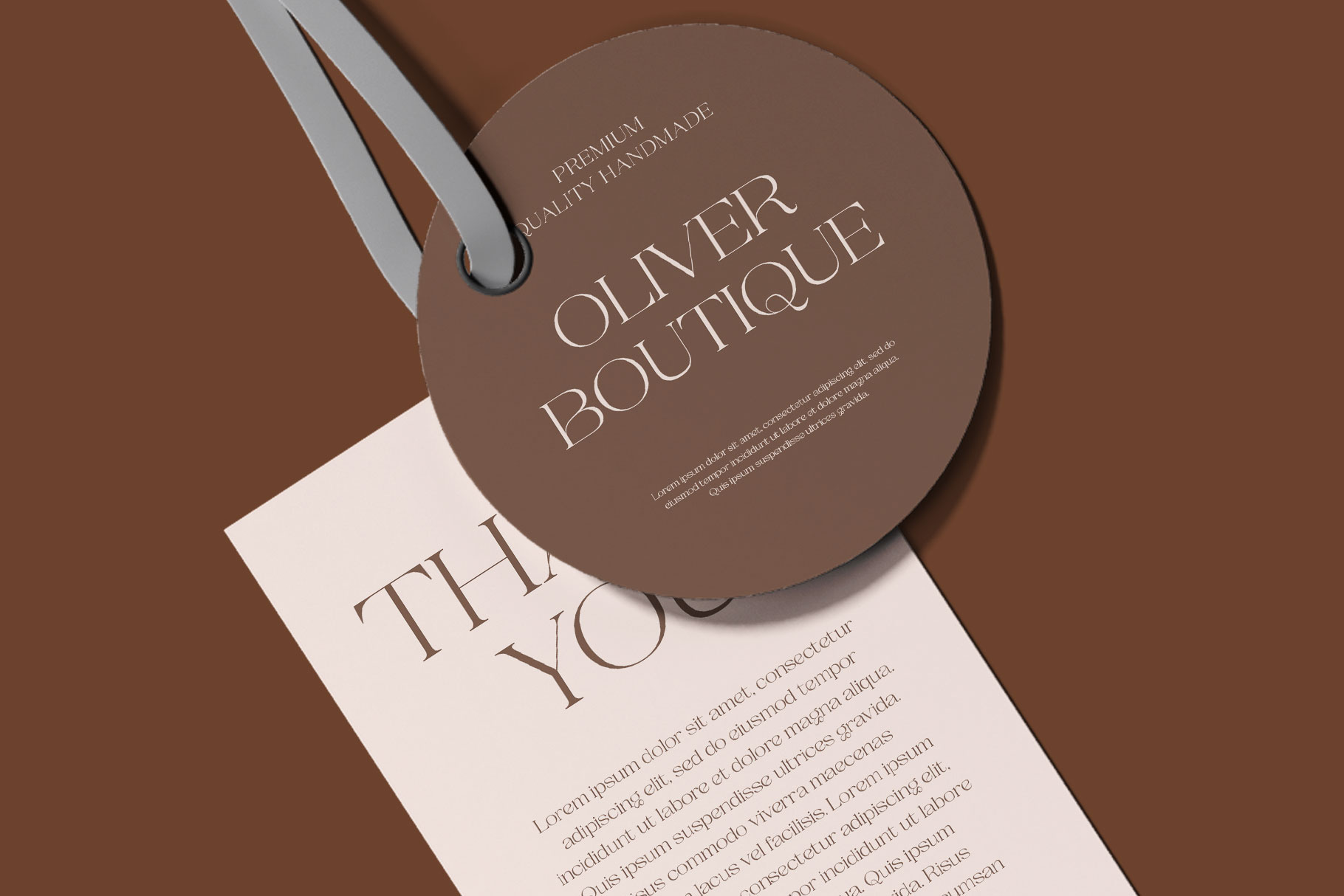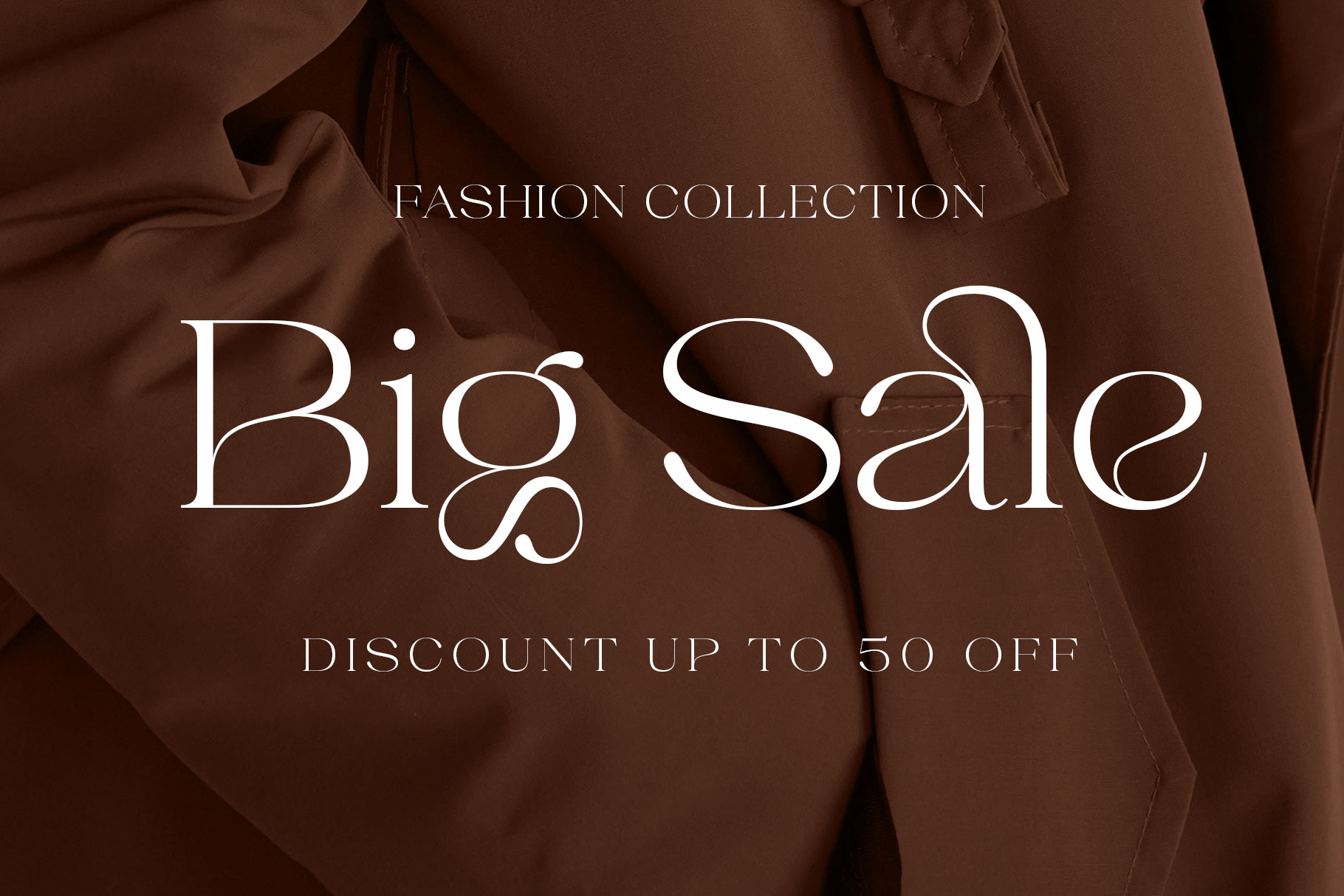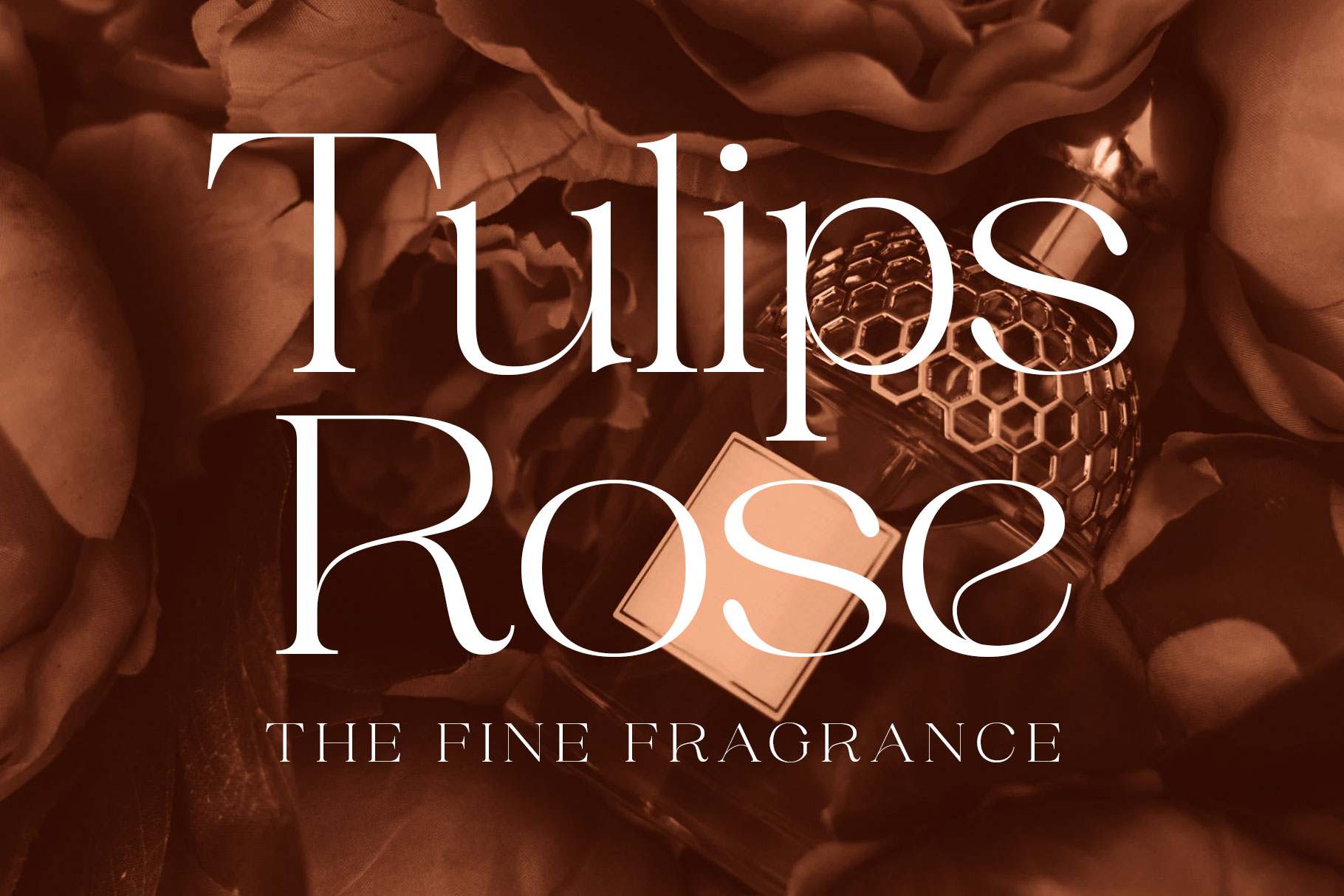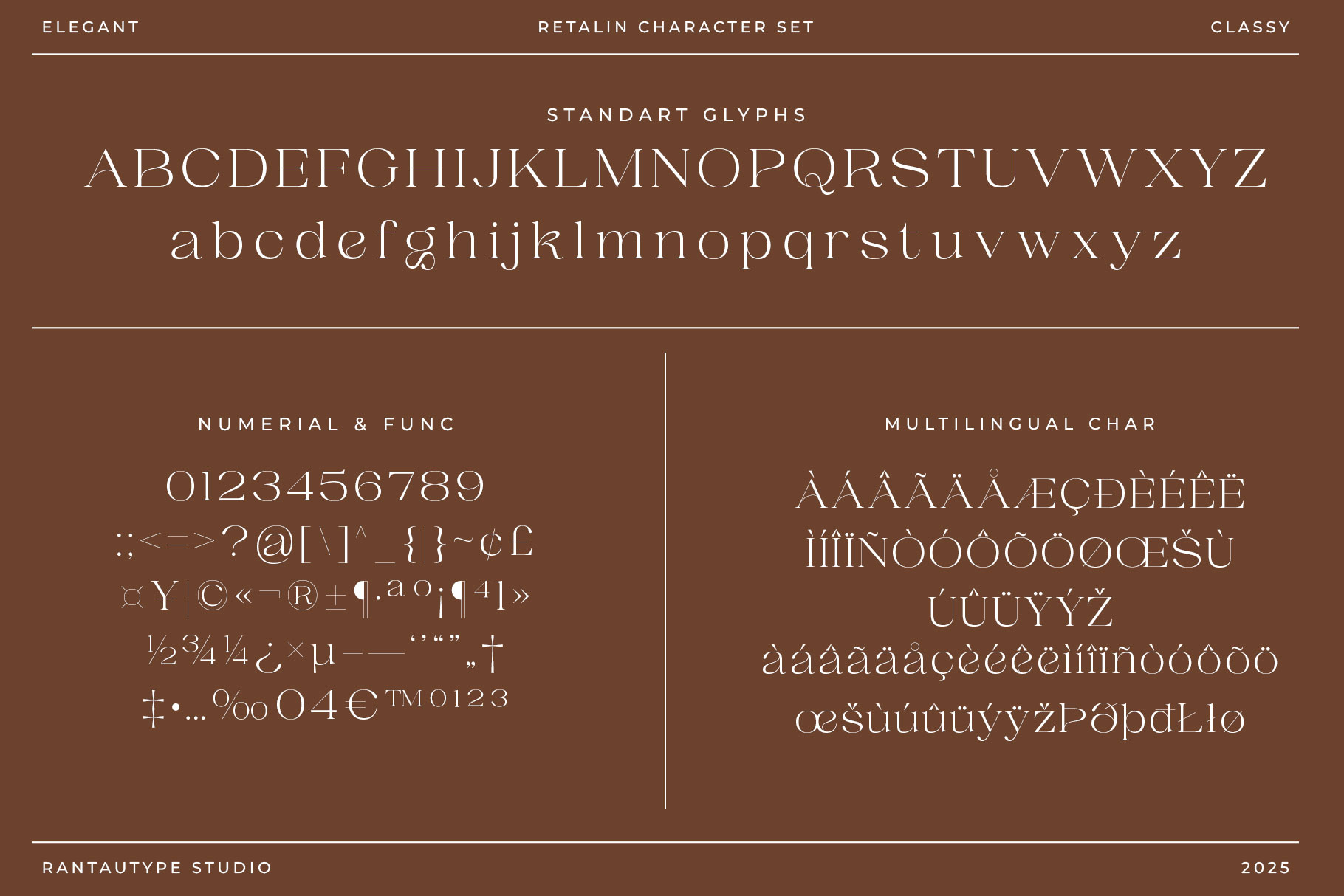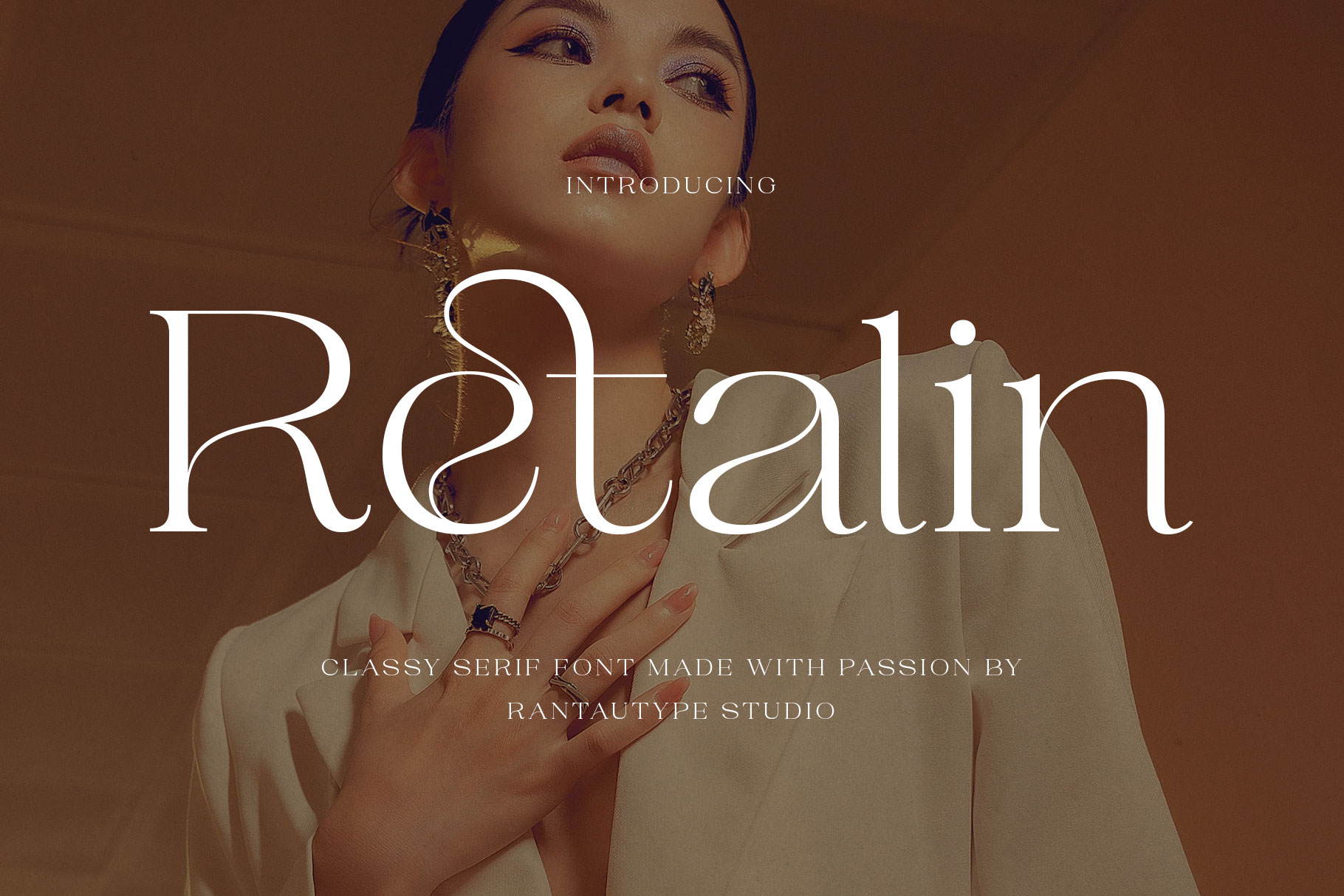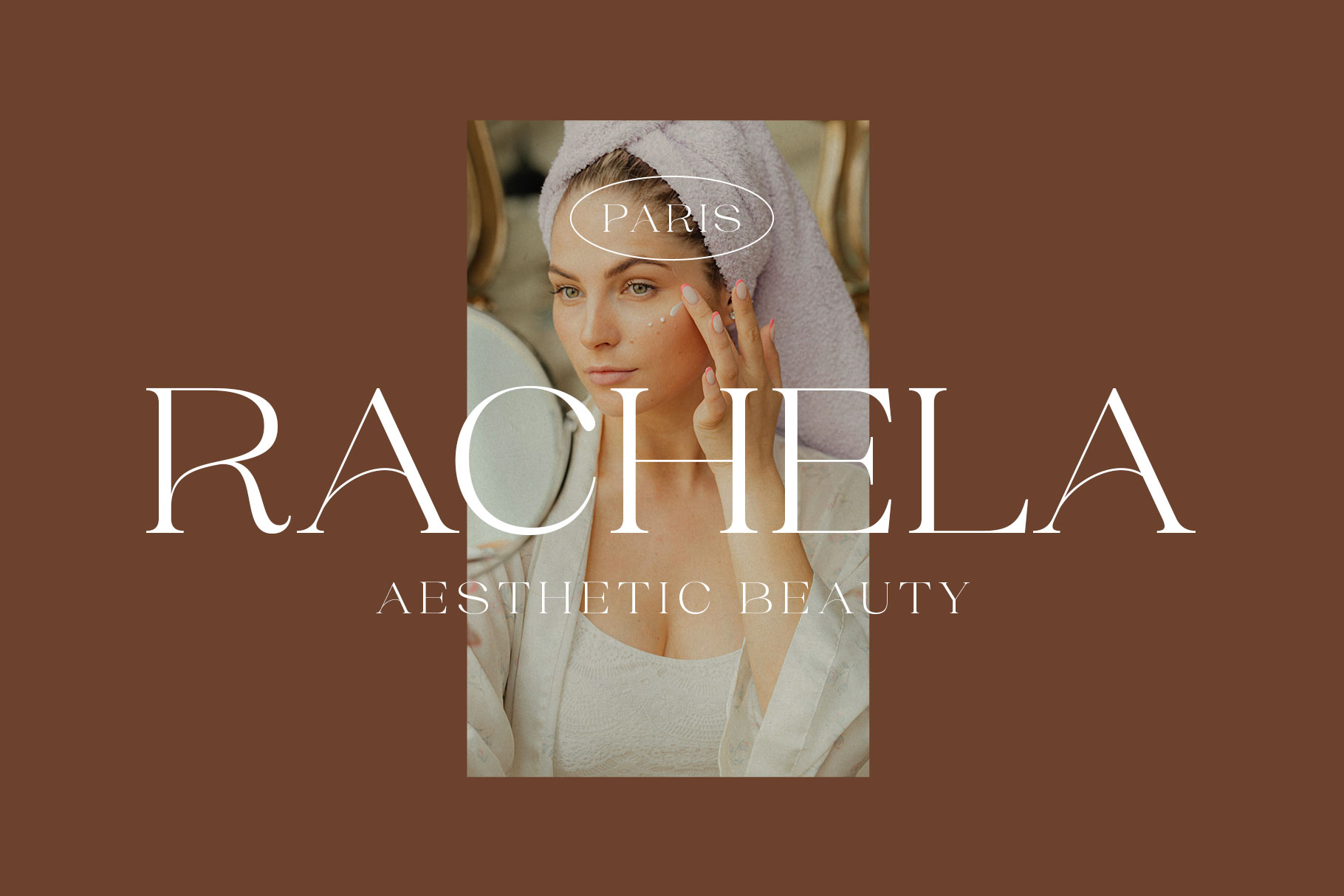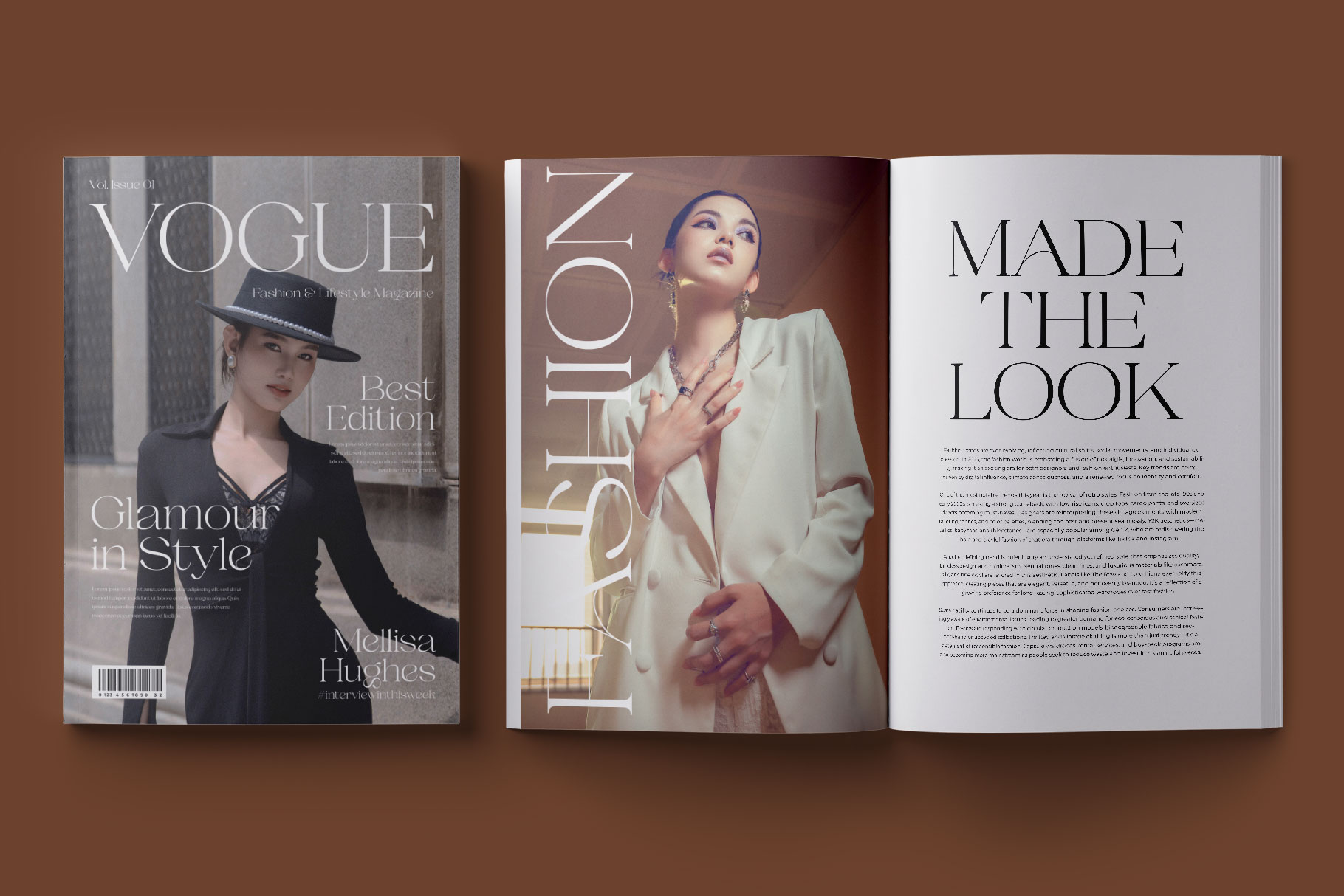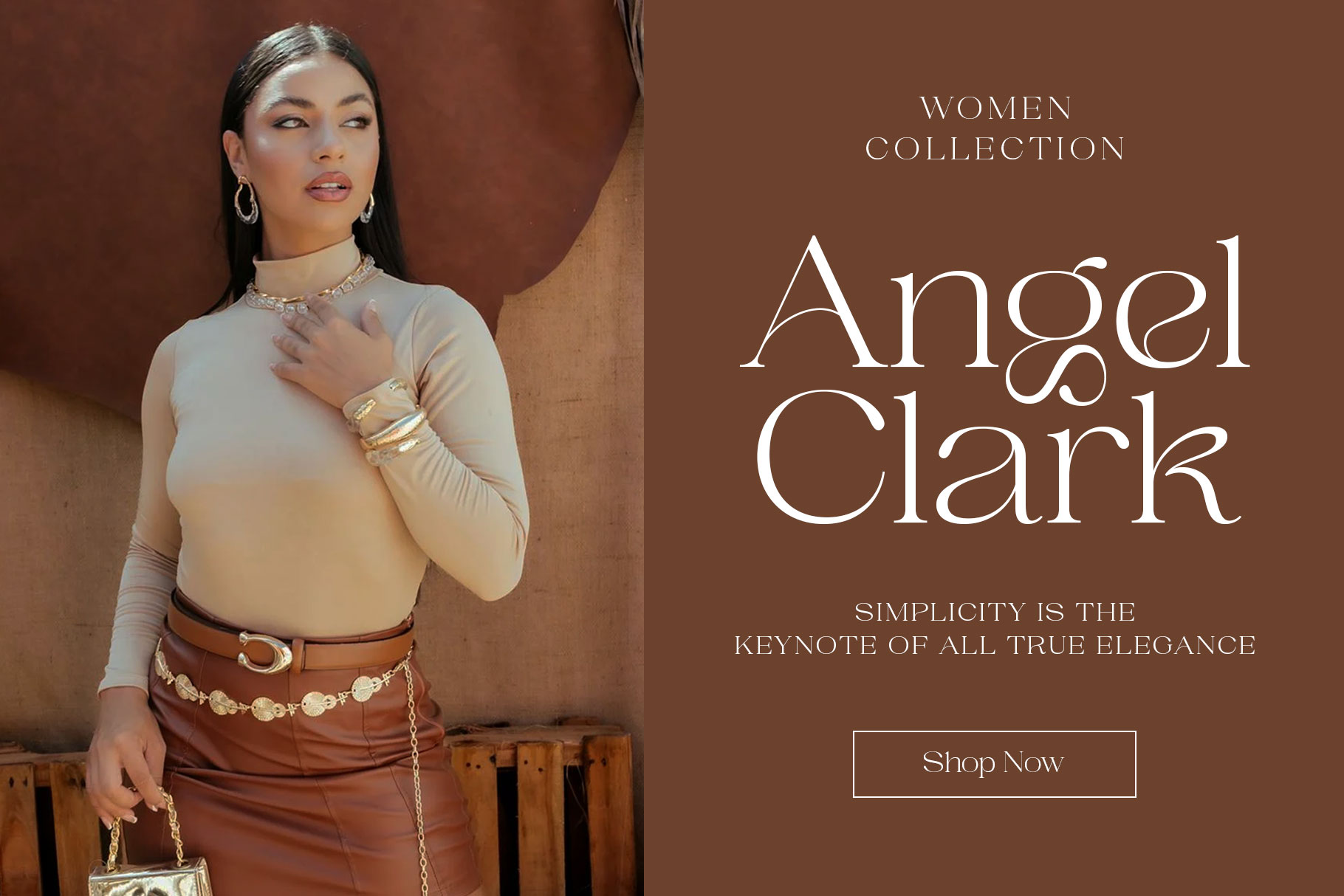
Retalin Classy Serif Font
Retalin an elegant serif font that reflects sophistication in every curve is a timeless choice for refined branding and editorial design. Its gracefully tapered serifs and delicate strokes embody classic beauty, while balanced proportions evoke harmony and poise. Each letterform flows with intentional precision, capturing the essence of luxury and tradition.
Retalin is a perfectly choice for any creative endeavor, chic, lifestyle design such as logotype, advertisements, watermark on photography, stationery, branding project, display and magazine, invitation, corporate brand, product design, label, business project and many other project with modern touch.